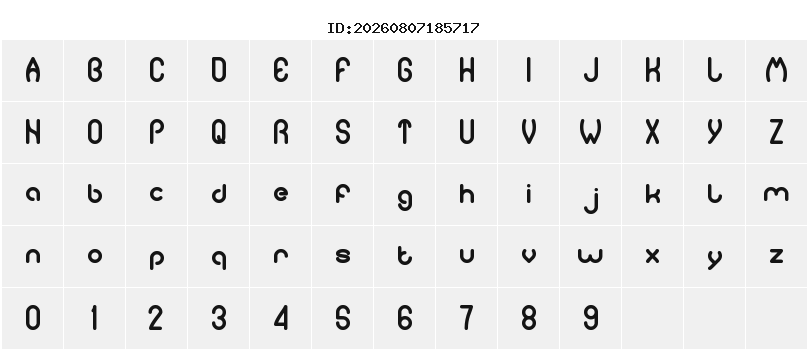
pure and simple everytime Preview
• Font Name: pure and simple everytime
About pure and simple everytime.ttf
pure and simple everytime.ttf is a modern, elegant sans-serif font designed for ultimate readability and visual harmony. Perfect for branding, headlines, web design, and print materials.